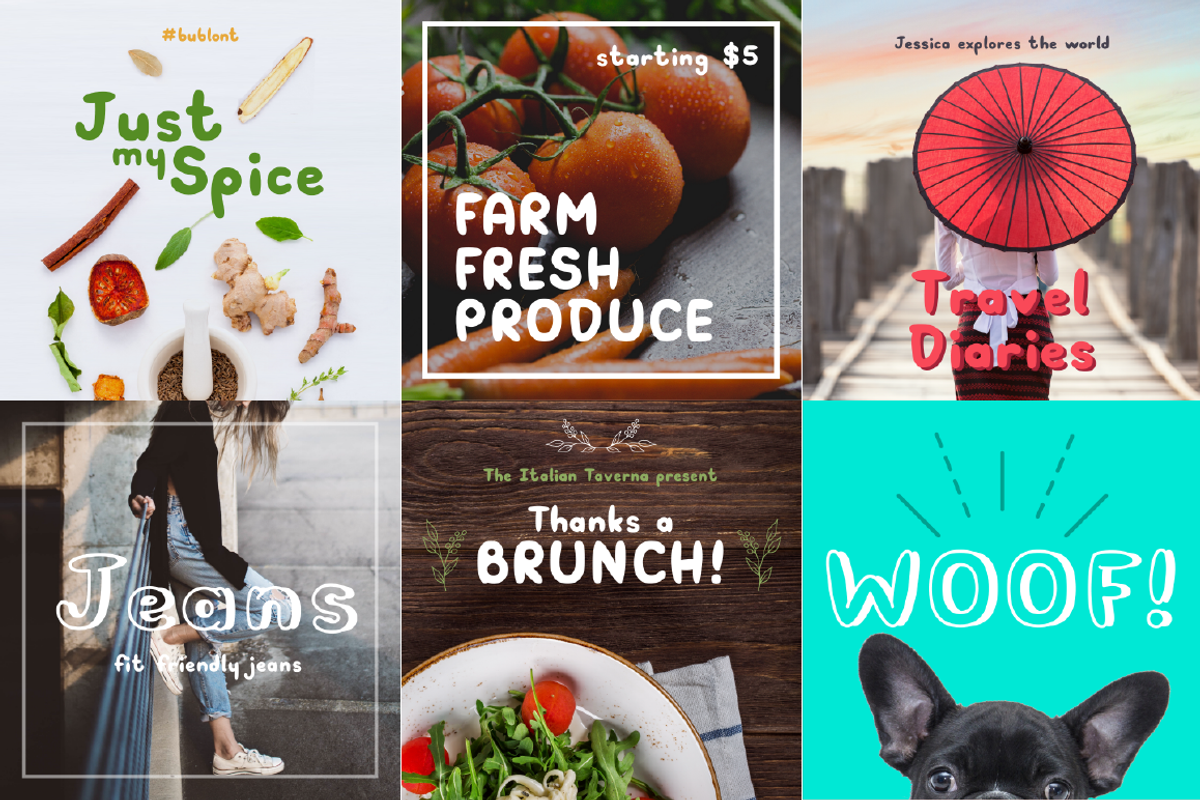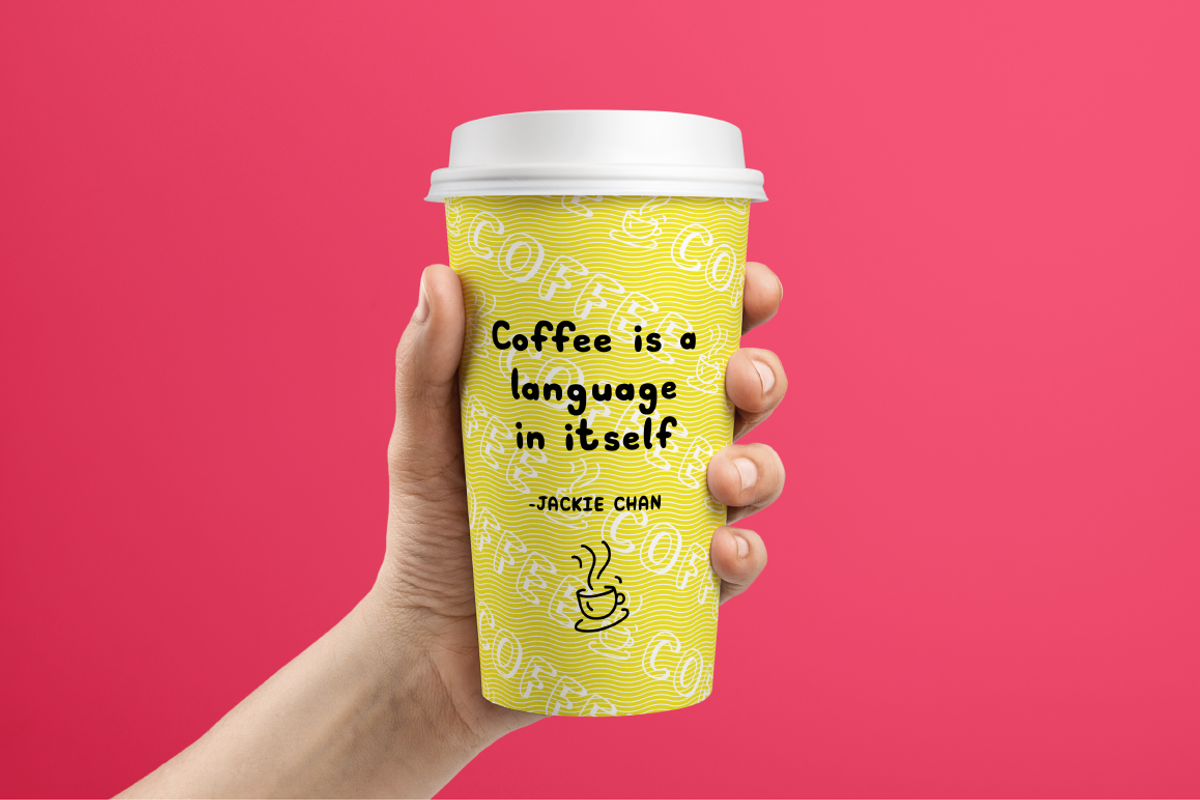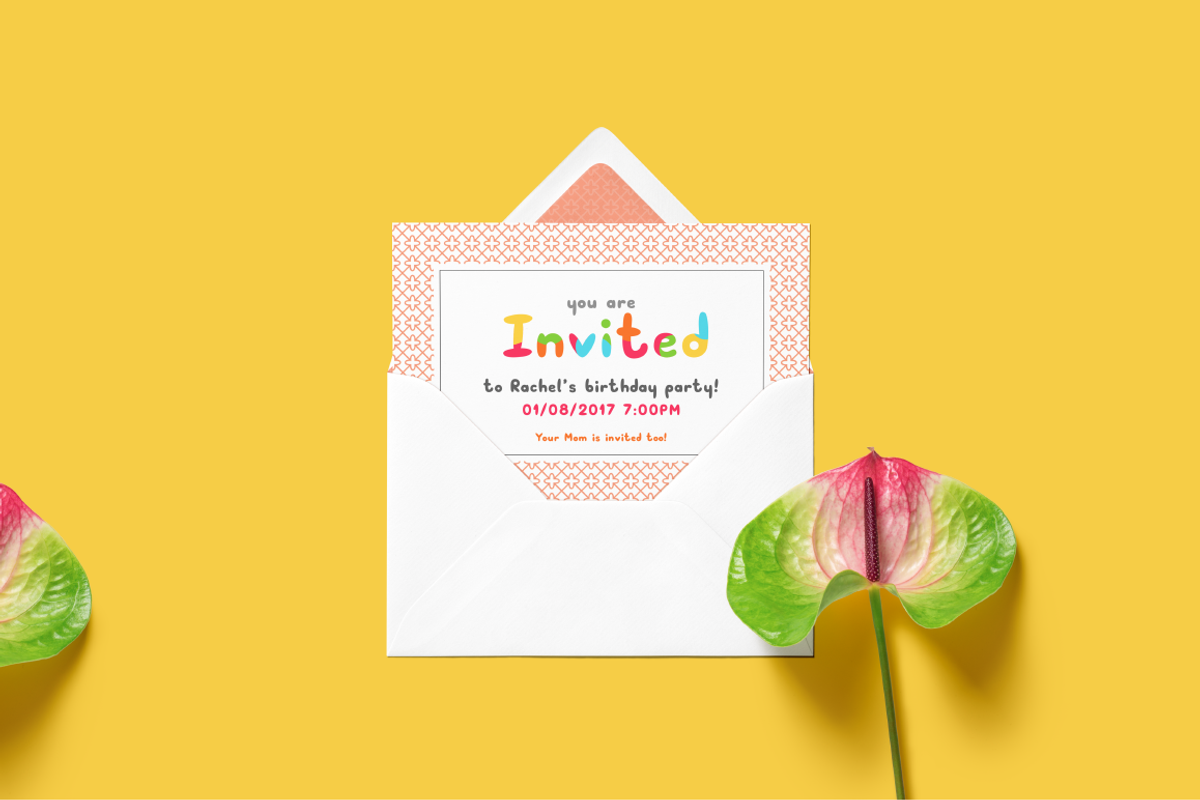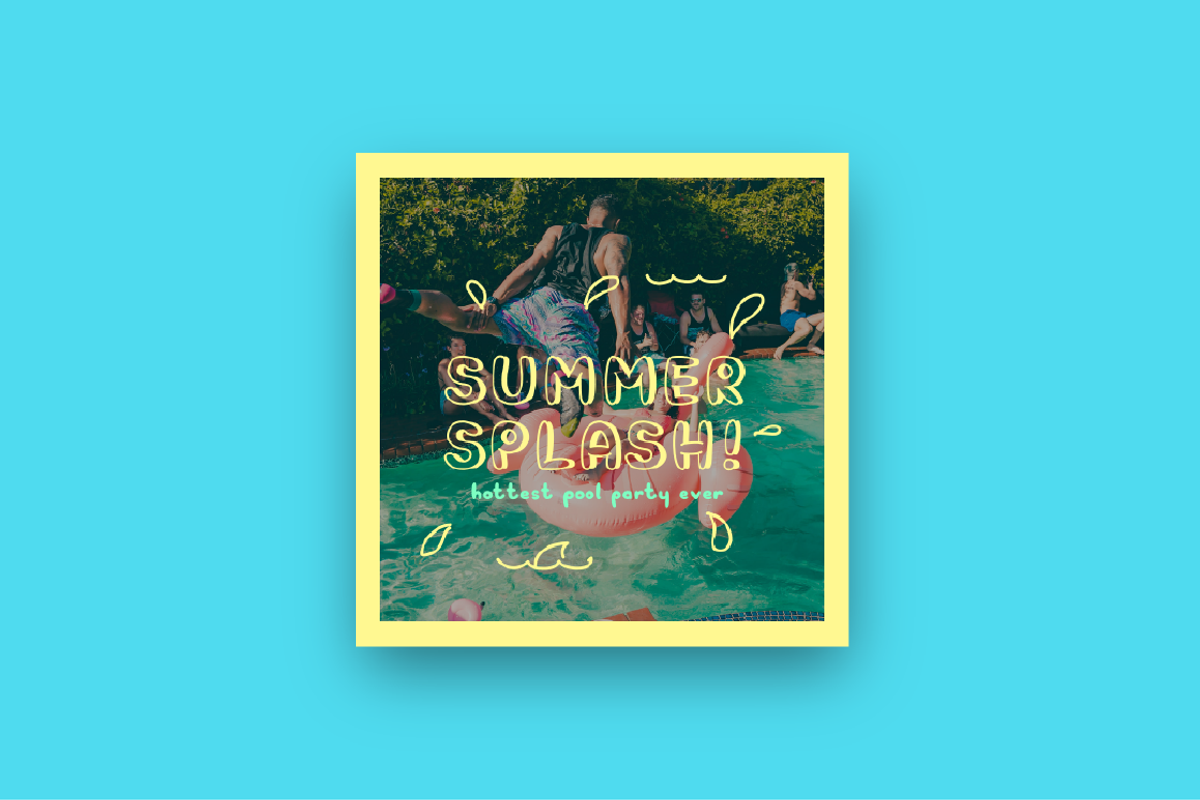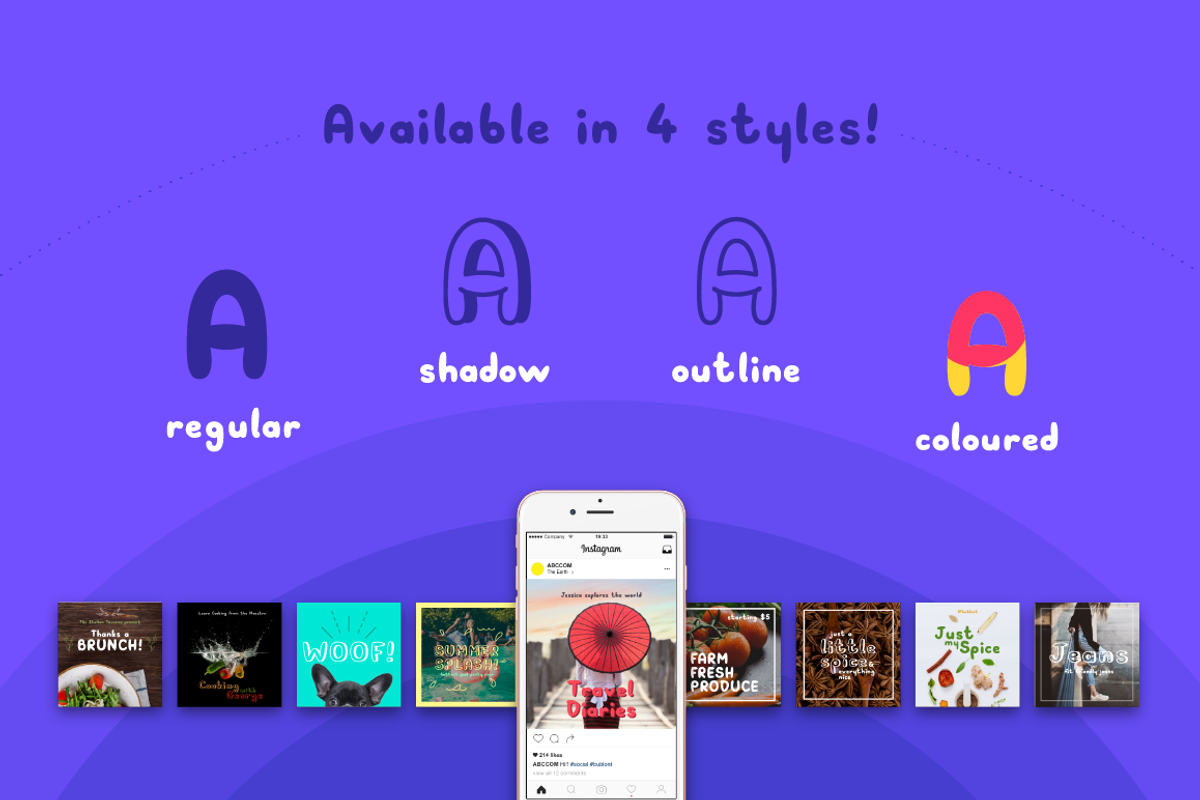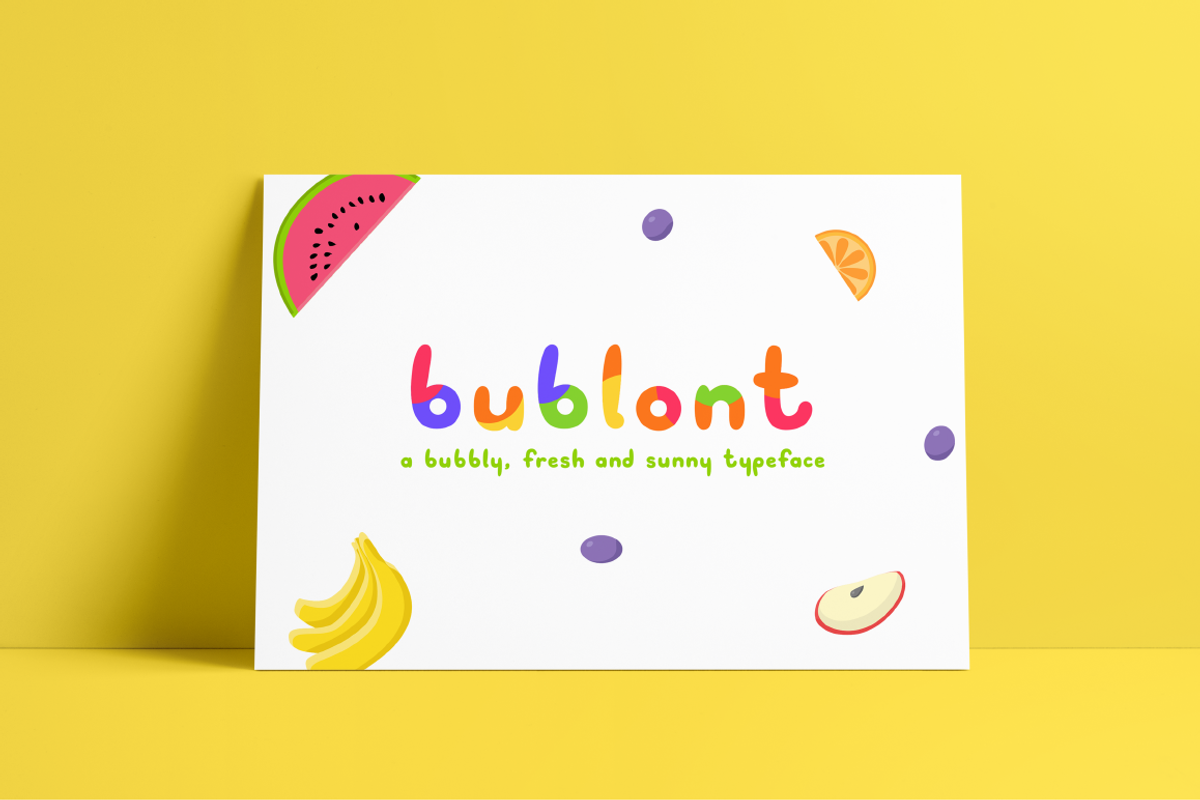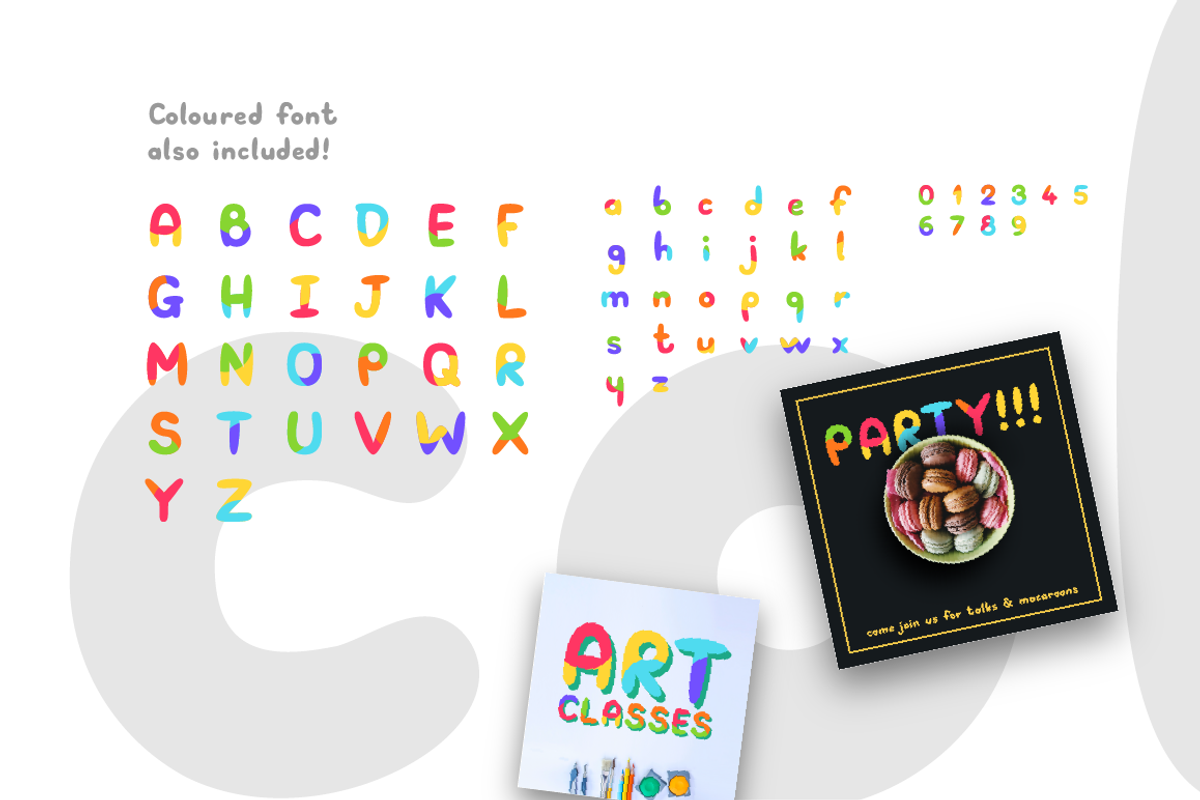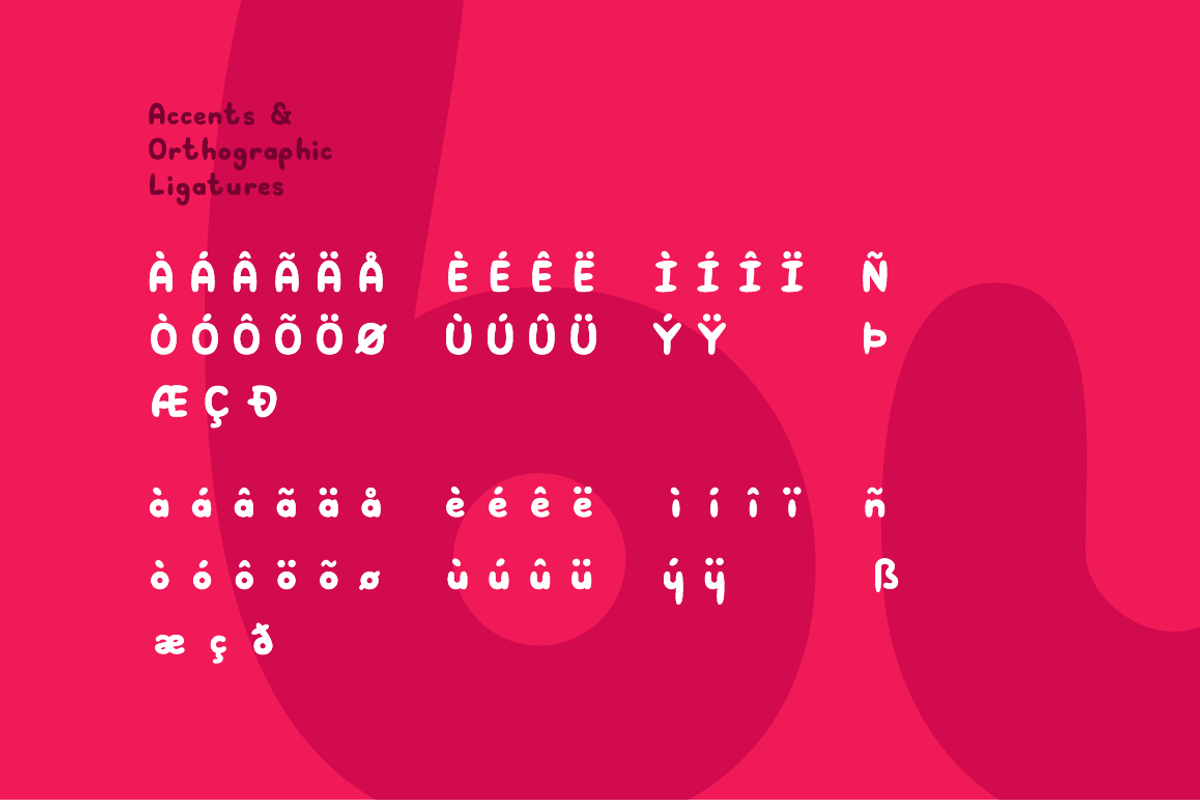
Bublont Typeface
Bublont is a bubbly, fresh and sunny typeface which makes it perfect for a variety of application including Social Posts, Prints and Packaging.
The awesome thing is that I have included accents and orthographic ligatures. The font works well with languages such as German&French as well!
Bublont Filled a solid filled font
Bublont Outline a light outlined version of the font to give your works an open feel
Bublont Shadow a shadow font variation that can add a bit of drama to your works!
Bublont Colour a coloured version of the Regular font. Add pops of bright colours to bring excitement to your invites and social posts!